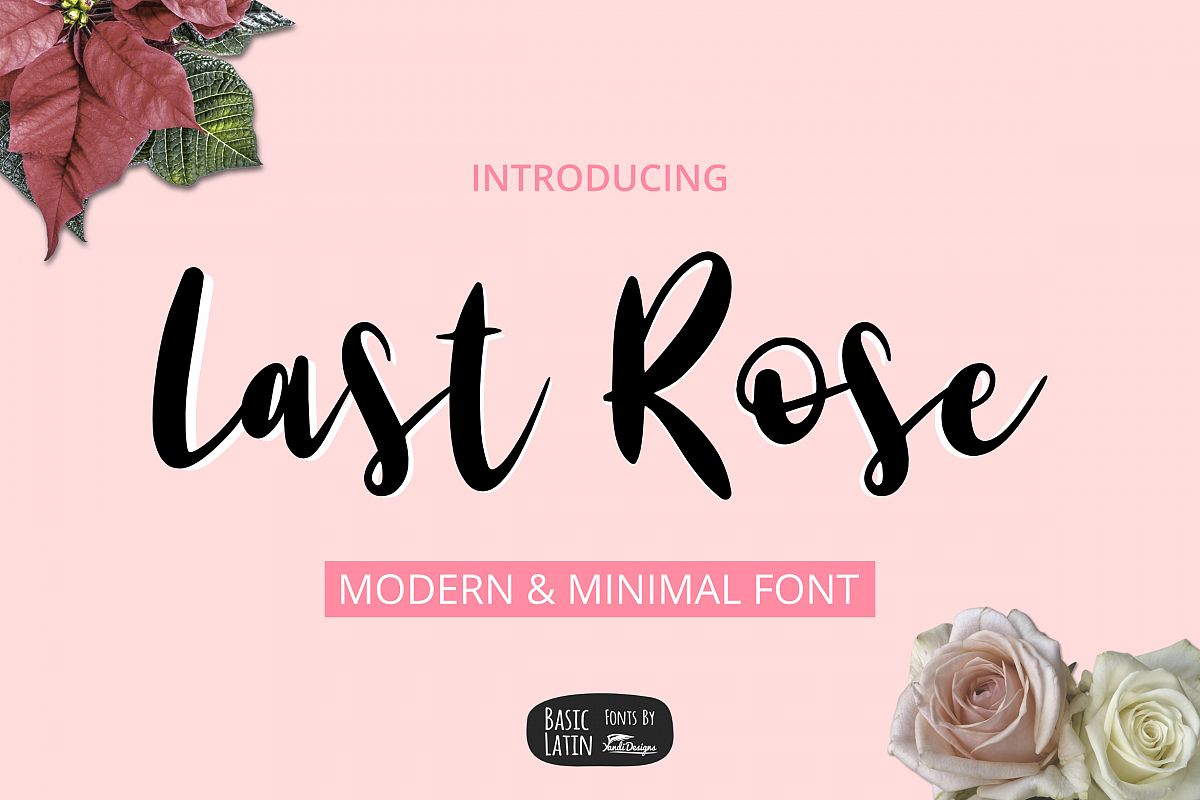
Last Rose Font
Last Rose Fonts
Modern and minimal script fonts , suitable for many project children book, quotes, logo , heading , title etc.
Basic Latin (Standard English character , number, symbol)